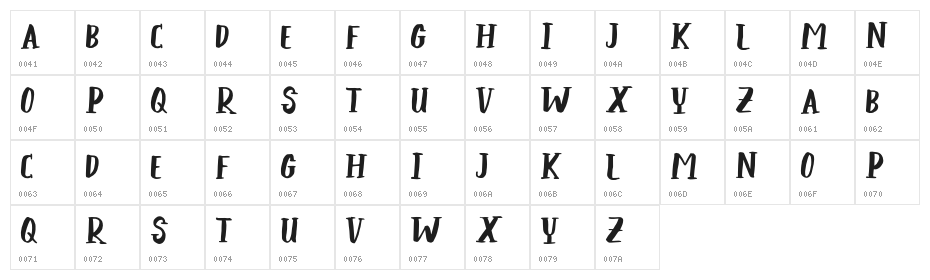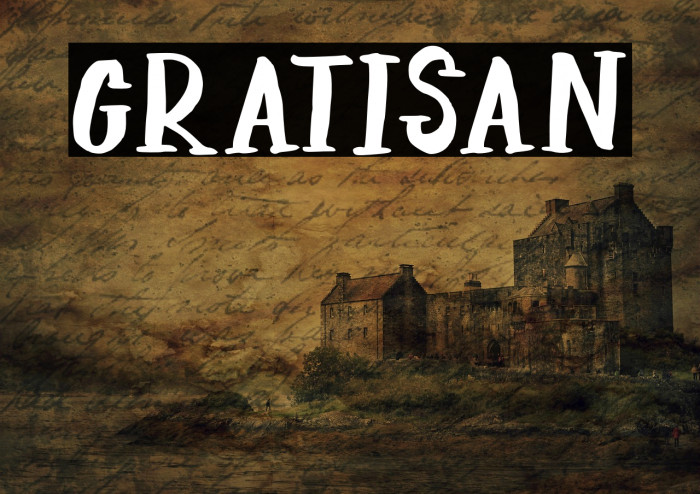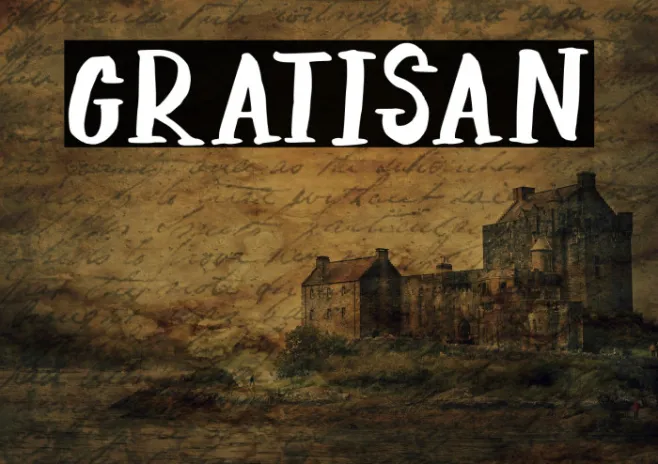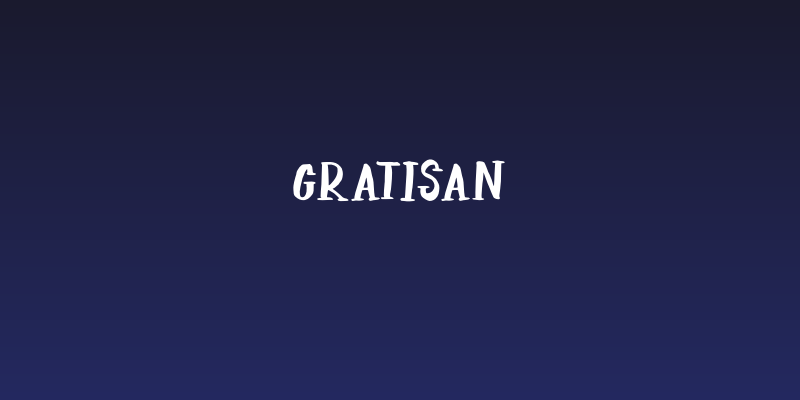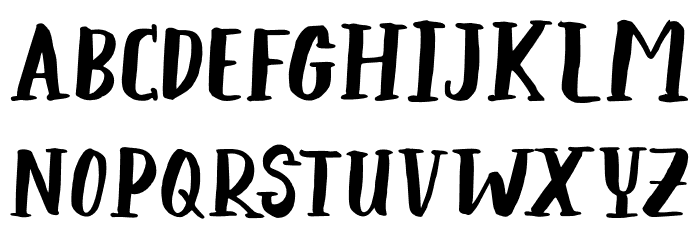
GRATISAN Font
GRATISAN Description
This font features a bold and dynamic style with a handwritten appearance, characterized by its slightly irregular strokes and playful curves. The uppercase letters exhibit a sense of movement and energy, with varying stroke widths that add a lively touch. The overall design is informal yet impactful, making it suitable for creative and expressive projects. The font's unique character is enhanced by its slightly condensed width and moderate contrast between thick and thin strokes, giving it a distinctive and eye-catching look.